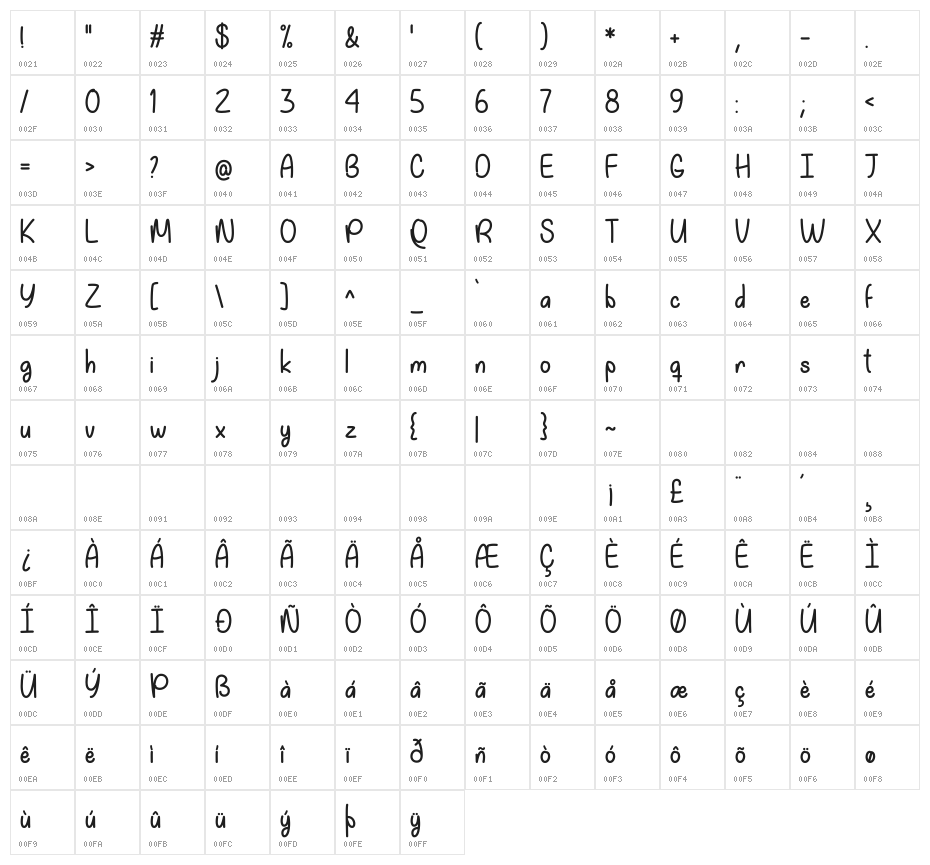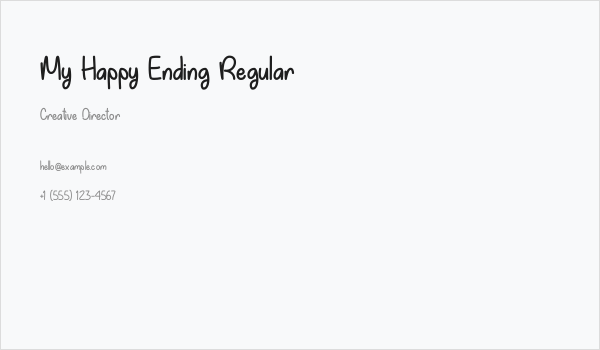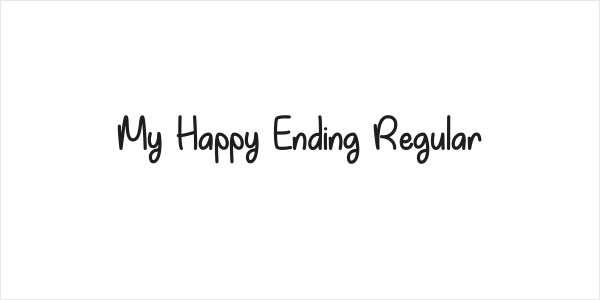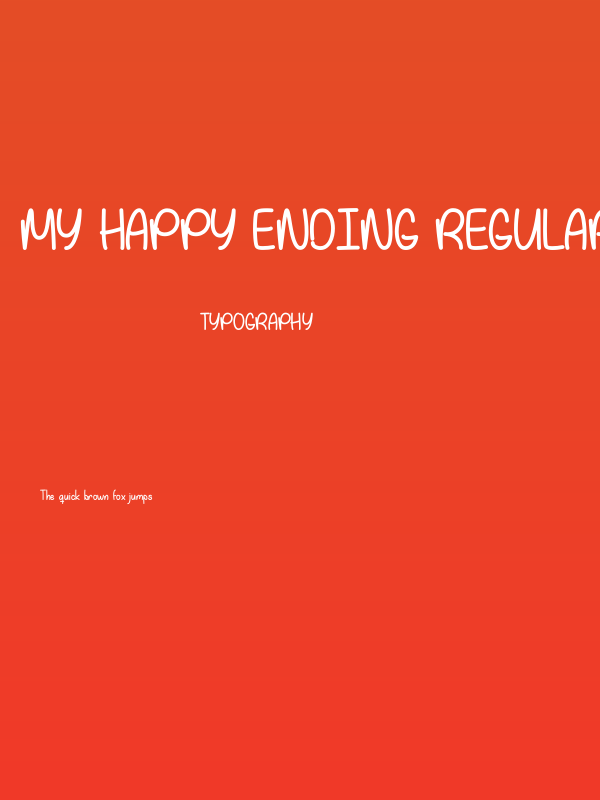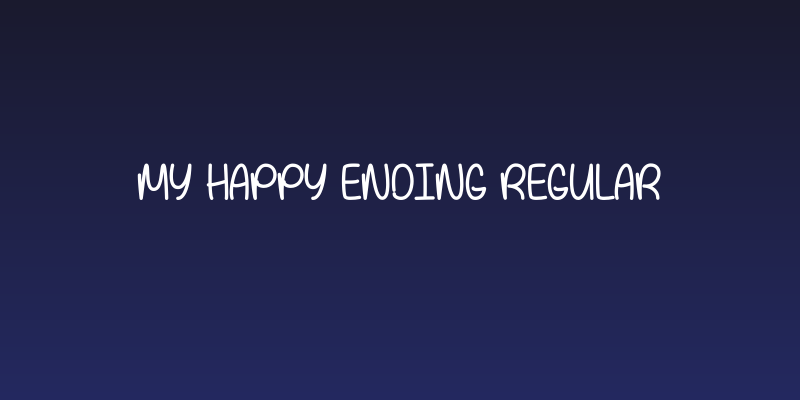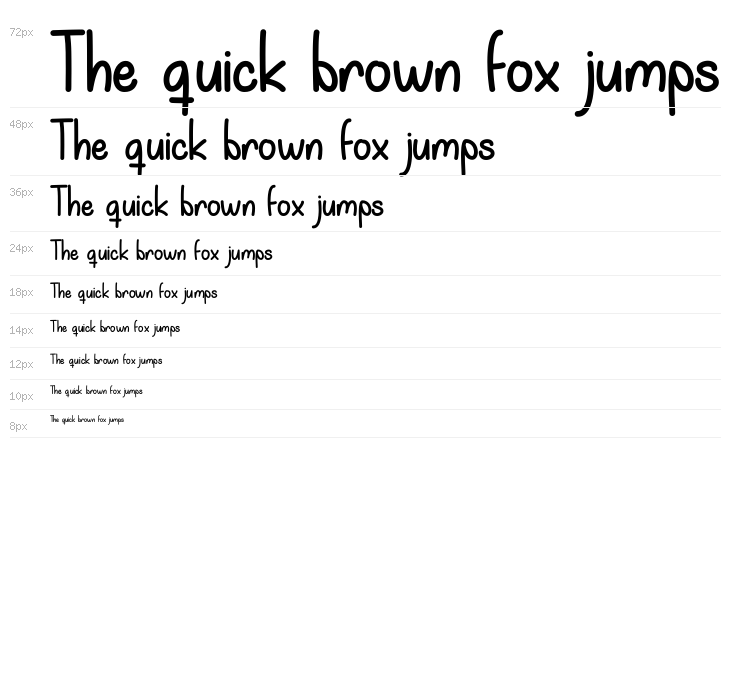
My Happy Ending Regular Font
My Happy Ending Regular Description
This playful and whimsical font features rounded, bubbly characters that convey a sense of fun and friendliness. The letters are slightly irregular, adding a hand-drawn feel that enhances its casual and approachable nature. The strokes are consistent in thickness, providing a uniform appearance across all characters. The font includes both uppercase and lowercase letters, numerals, and a variety of special characters, making it versatile for different uses. Its informal style is perfect for projects that aim to evoke joy and creativity.
| Proposed Projects | Ideal for children's books, greeting cards, playful branding, and social media graphics. |